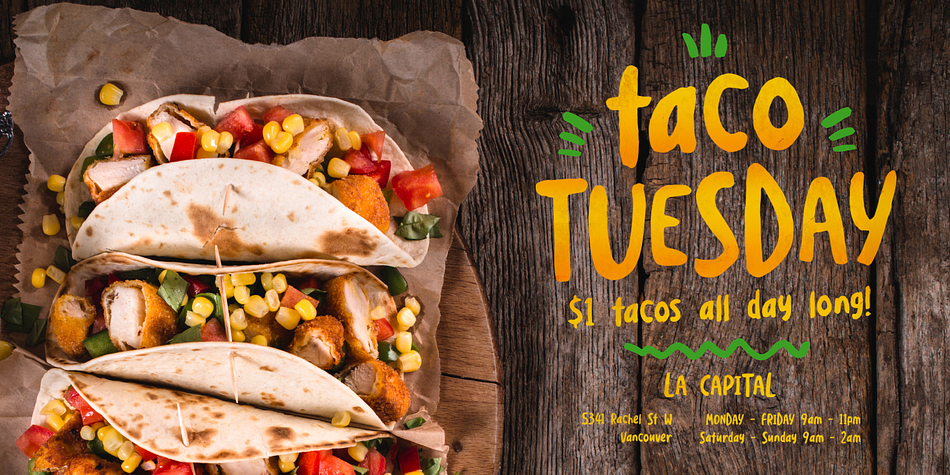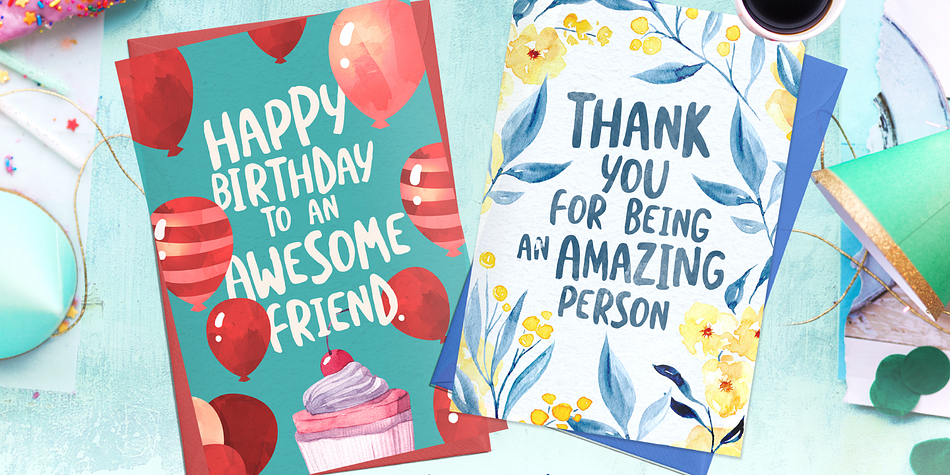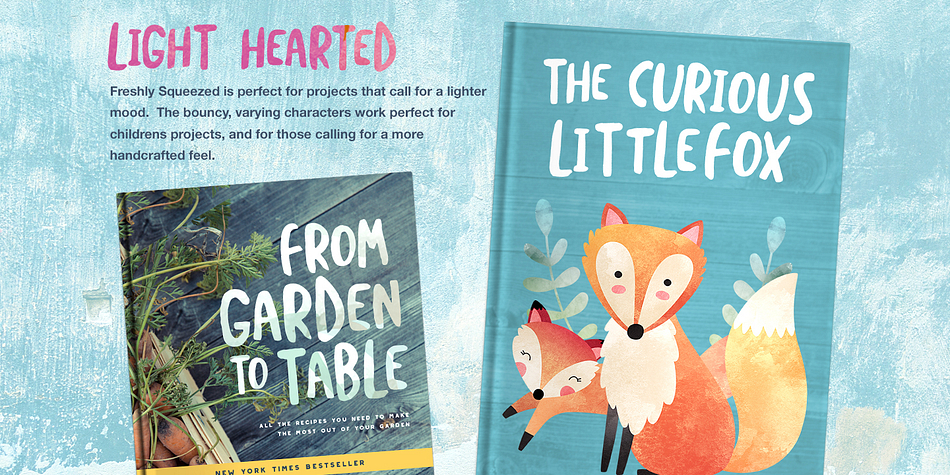
Freshly Squeezed is a hand drawn, kids and dingbat font family. This typeface has four styles and was published by Rook Design Supply.
Freshly Squeezed is a font that projects a ton of light hearted personality. Whether the
characters are used for logos, greeting cards, book covers, banners or flyers, these bouncy letters are perfect for lightening the mood. Each character was hand painted and refined until everything mixed together perfectly. Lots of language support has been added in, to make sure you’re covered in any scenario.
If you’re looking for variety in your text, look no further. Every letter a-z has an alternate character available. This will help to keep your text looking natural, and give you options to work with. To add even more personality, we’ve added in an extras font full of fun swashes, icons, and other images that can help spice up your designs.